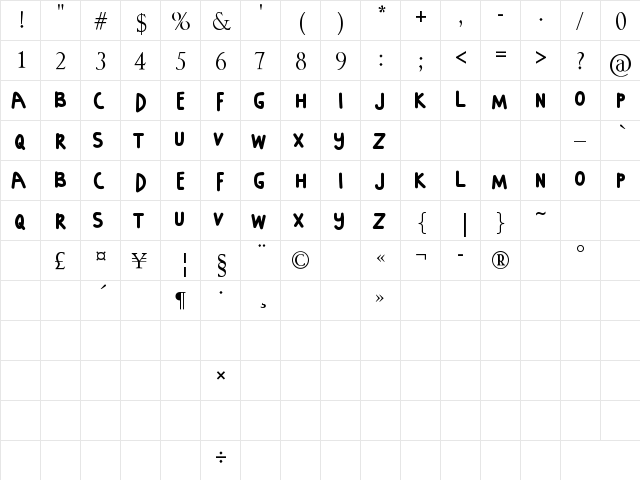
DIOMIRA Regular
Design Context for DIOMIRA Typeface
DIOMIRA is a composed and adaptable typeface that performs quietly and consistently across a wide range of design contexts.